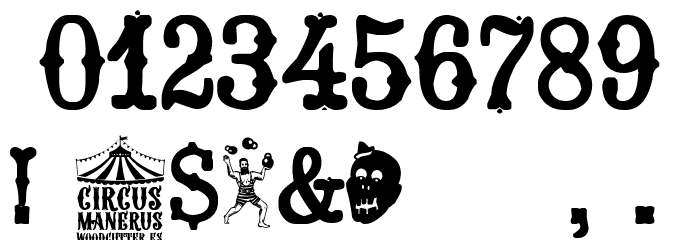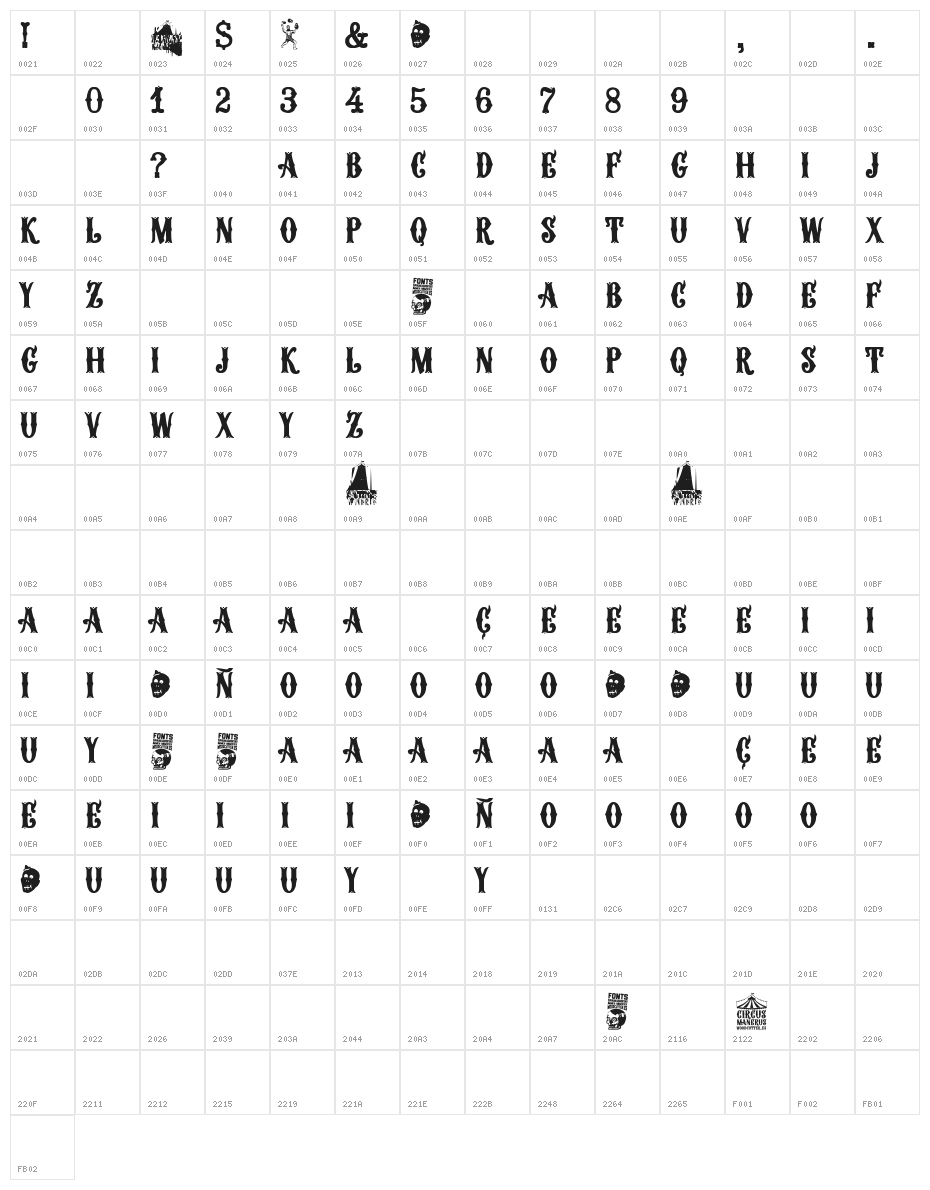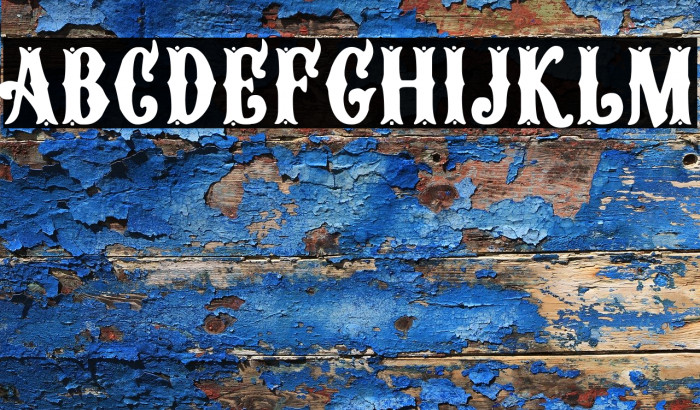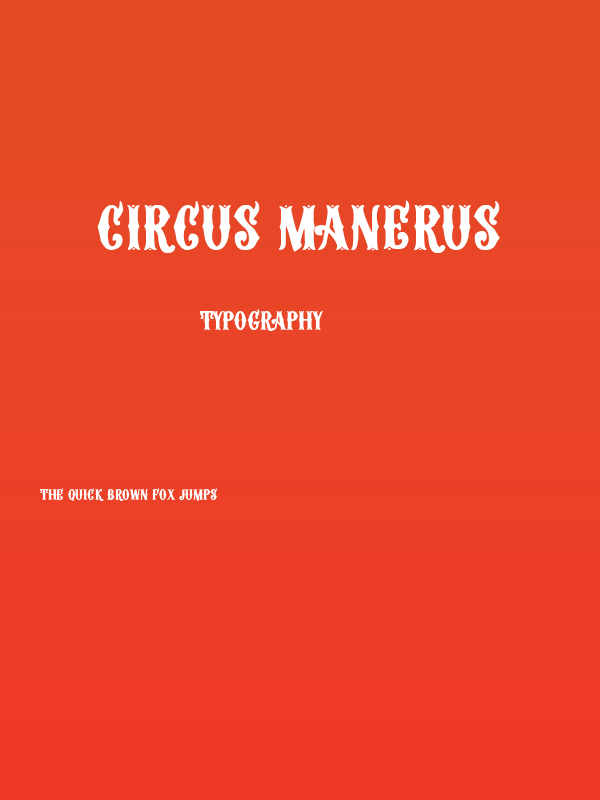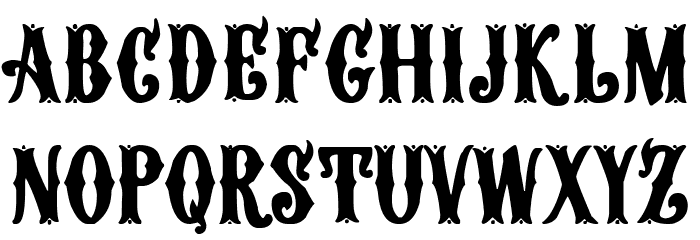
Circus Manerus Font
Circus Manerus Description
This font exudes a playful and whimsical style, reminiscent of vintage circus posters. The characters are bold and decorative, featuring unique flourishes and embellishments that give each letter a distinct personality. The uppercase and lowercase letters maintain a consistent design, with exaggerated curves and serifs that add to the overall theatrical feel. Numbers and special characters are equally ornate, making them perfect for eye-catching designs. The font's boldness and intricate details make it ideal for projects that require a touch of nostalgia and fun.